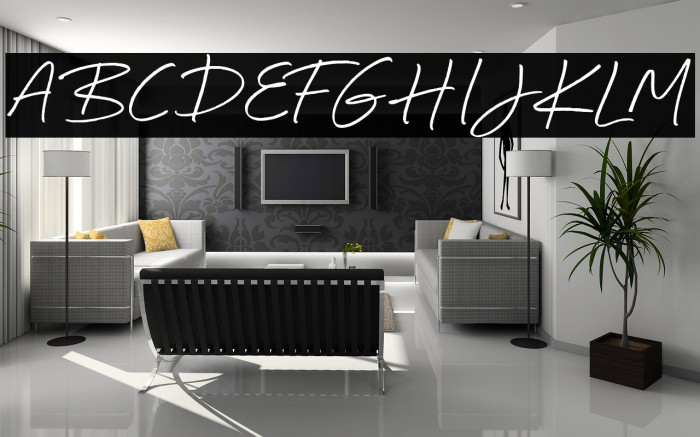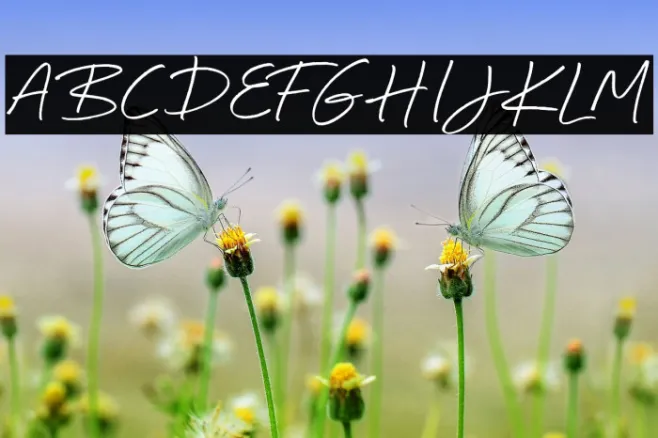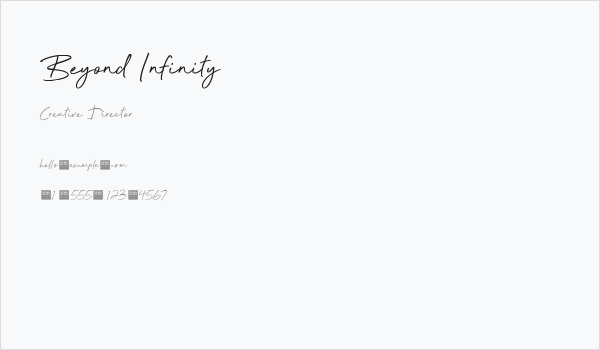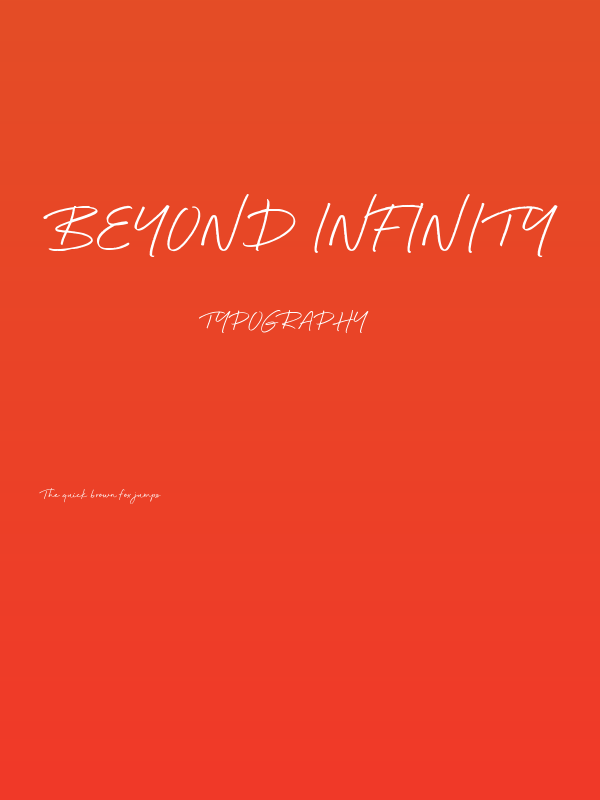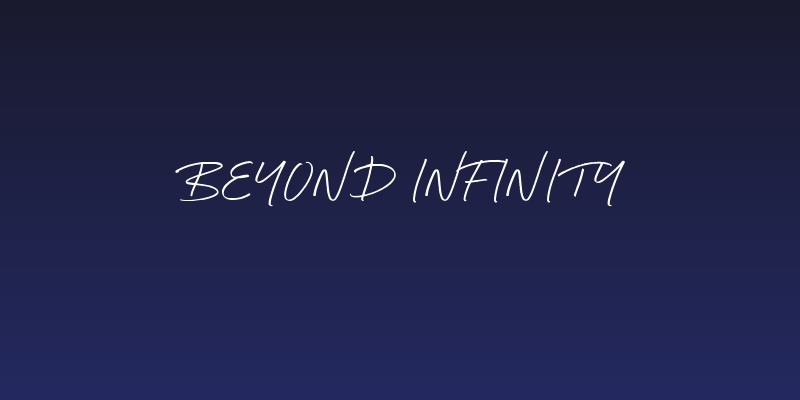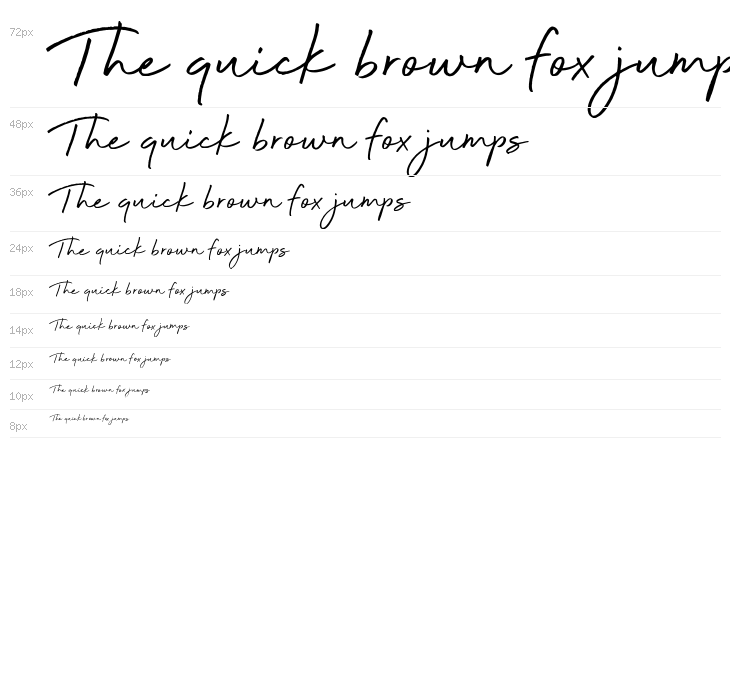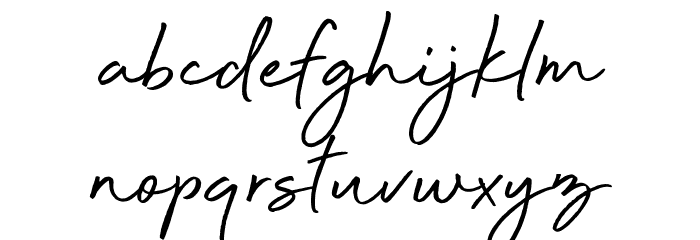
Beyond Infinity Font
Beyond Infinity Description
This font features a fluid, handwritten style that exudes elegance and a personal touch. The characters are crafted with smooth, flowing lines that mimic the natural motion of handwriting. The uppercase letters are slightly elongated, giving a sense of grace and sophistication, while the lowercase letters maintain a consistent flow, enhancing readability. The numerals and special characters are designed to complement the overall style, maintaining the same fluidity and elegance. This font is perfect for projects that require a personal or artistic touch, such as invitations, greeting cards, or branding materials.
| Overall Style | Elegant, Artistic |
| Use Case | Headlines, Logos, Artistic projects |
| Proposed Projects | Ideal for invitations, greeting cards, branding, and artistic projects. |